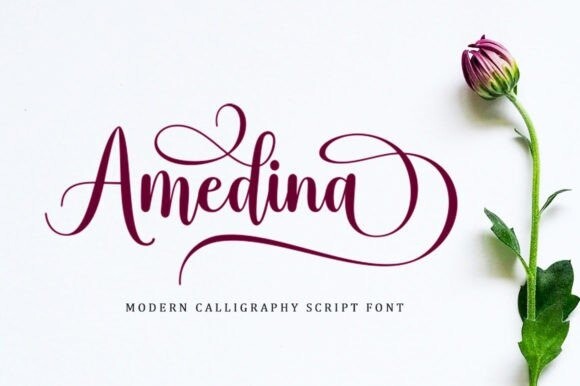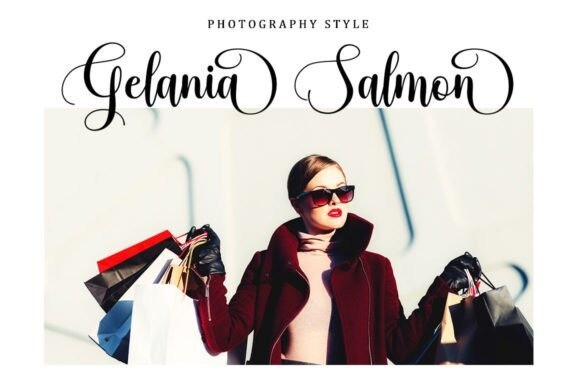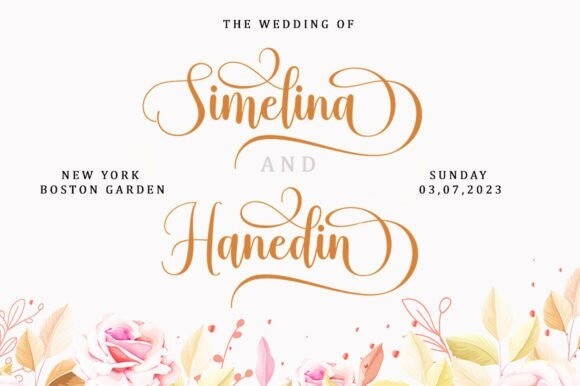
Amedina Font
Amedina feels equally charming and elegant. It looks stunning on wedding invitations, thank you cards, quotes, greeting cards, logos, business cards, and every other design which needs a handwritten touch.